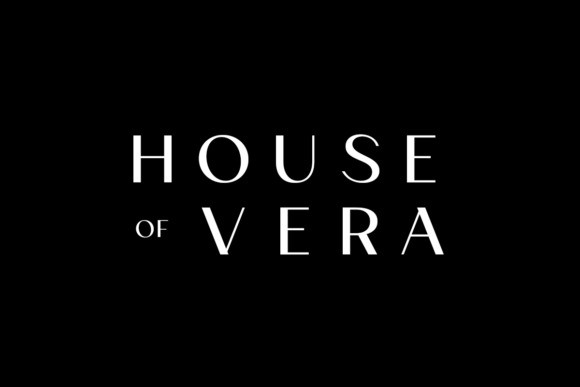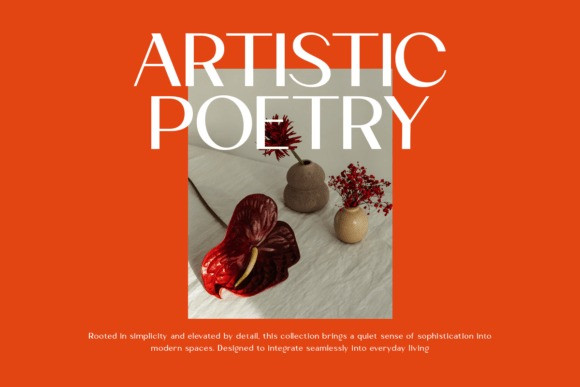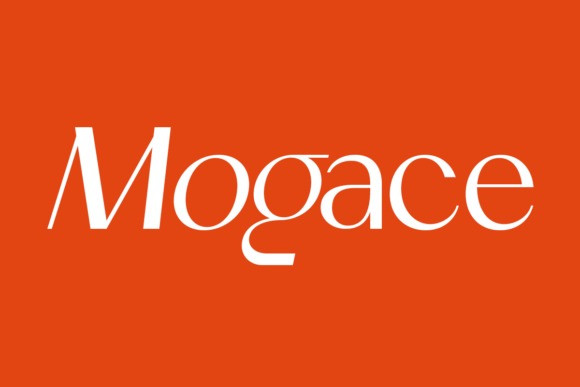
Mogace Font is a modern editorial serif typeface designed to deliver elegance and visual sophistication. With its high-contrast strokes, refined curves, and carefully balanced proportions, Mogace creates a strong yet graceful presence across a wide range of applications. Inspired by fashion magazines and luxury branding, this typeface is built for designers who seek clarity, style, and timeless appeal. Whether used for bold headlines or refined layouts, Mogace enhances visual storytelling with a distinctive editorial tone.
Mogace Font